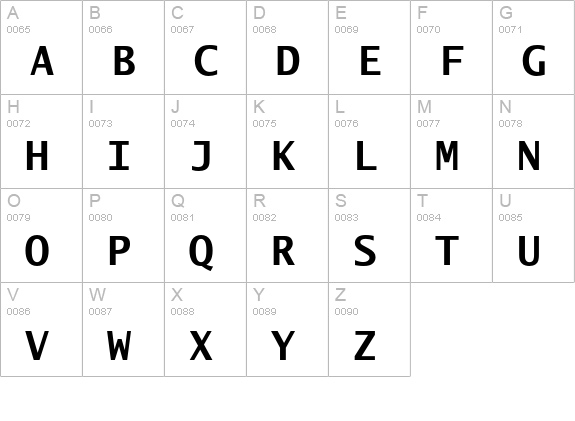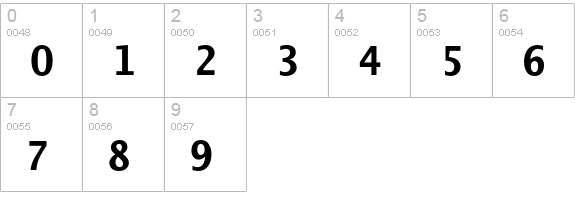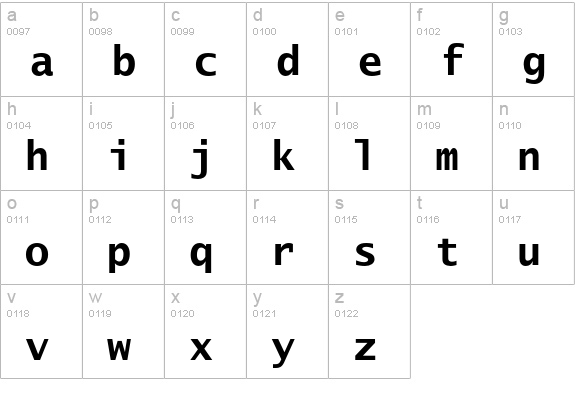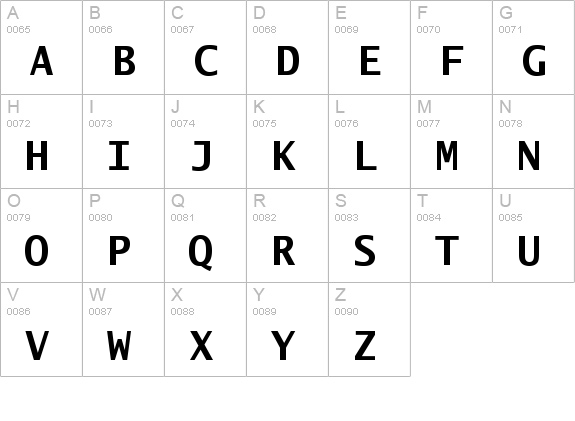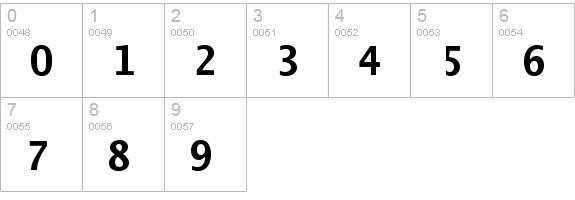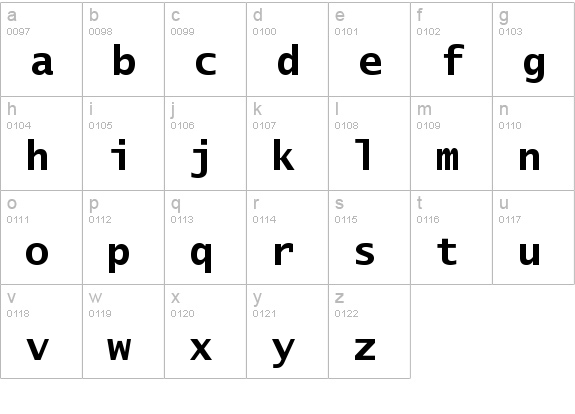
Lucida Sans Typewriter Std Bold Font Details
Lucida Sans Typewriter Std Bold is a strong, high-contrast variant in the Lucida typeface family \xE2\x80\x94 well suited to headlines, attention-grabbing titles, and strong calls-to-action.
Lucida Sans Typewriter Std Bold font is a sleek and modern typeface that exudes a sense of professionalism and clarity. Its bold weight makes it perfect for creating eye-catching headlines, titles, and emphasis in your design projects. What makes Lucida Sans Typewriter Std Bold font even more appealing is that it is available for free download at FontsMarket.com. This means you can easily access this versatile font for your personal or commercial use without any cost. With its clean lines and distinct appearance, Lucida Sans Typewriter Std Bold font is a great choice for adding a touch of sophistication to your typography projects. Whether you're designing a website, creating marketing materials, or working on a branding project, this font is sure to make a lasting impression. Download it for free today and elevate your designs with this stylish and impactful typeface.